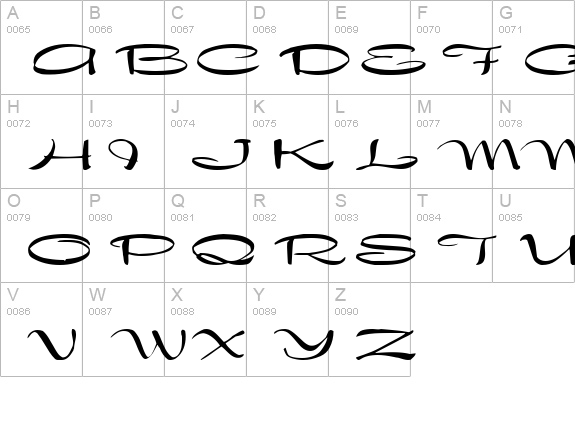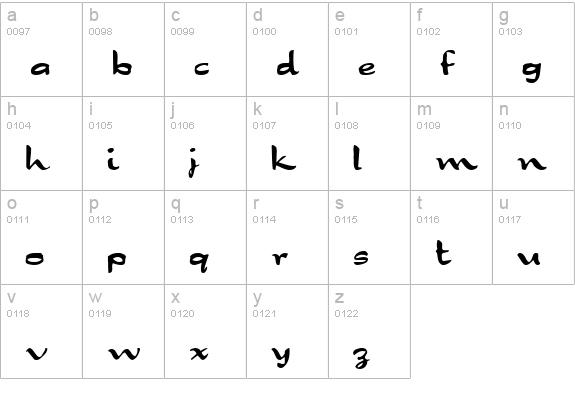
Dragonwick FG Font Details
Dragonwick FG is a striking and elegant font that exudes a sense of mystery and fantasy. Its intricate and flowing script style gives any design a touch of magic and sophistication. The elaborate swirls and curves of Dragonwick FG make it perfect for adding a touch of enchantment to invitations, posters, logos, and more. The best part? Dragonwick FG is available for free download at FontsMarket.com. This means you can easily add this stunning font to your collection without any cost. So why wait? Download Dragonwick FG today and let your creativity soar to new heights!